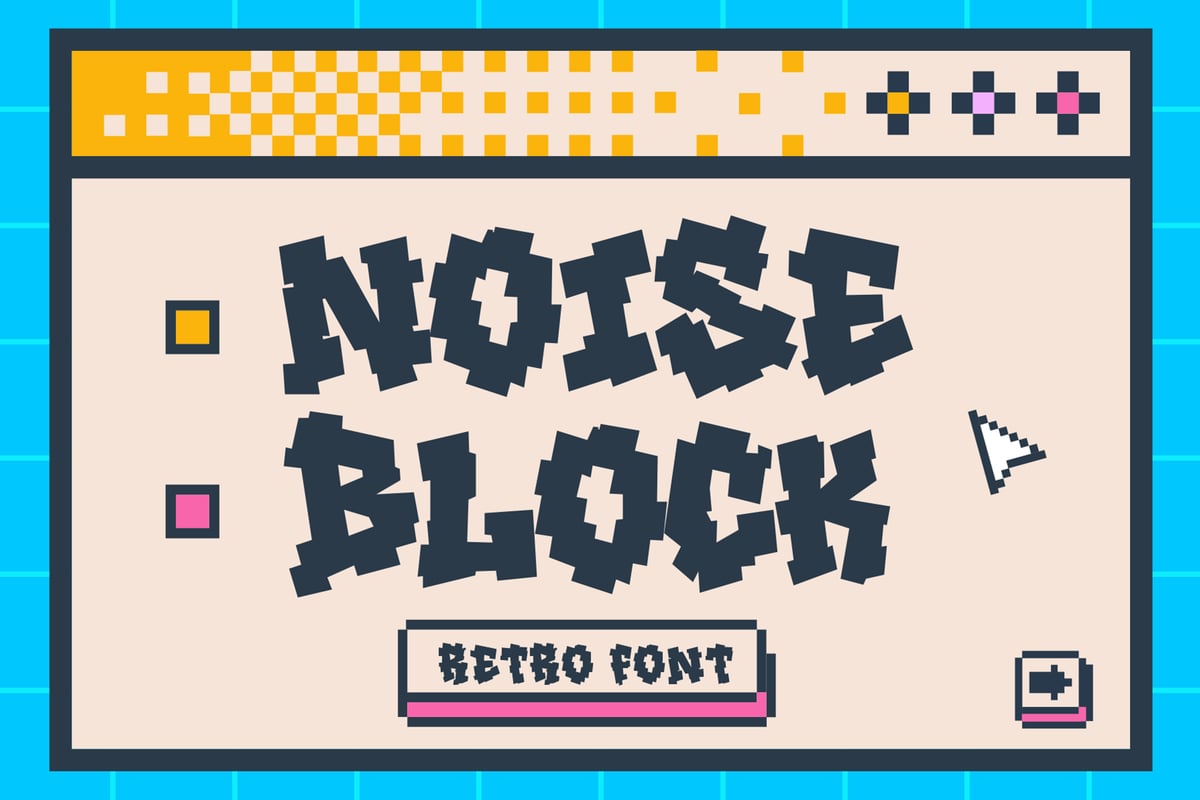
Noise Block
Noise Block is a pixelated graffiti retro font that blends nostalgic 8-bit game aesthetics with the rebellious energy of street art. It’s bold, edgy, and bursting with attitude — a perfect fusion of digital imperfection and urban creativity. Every letter looks handcrafted from pixels, giving it a jagged, dynamic rhythm that feels alive and expressive.